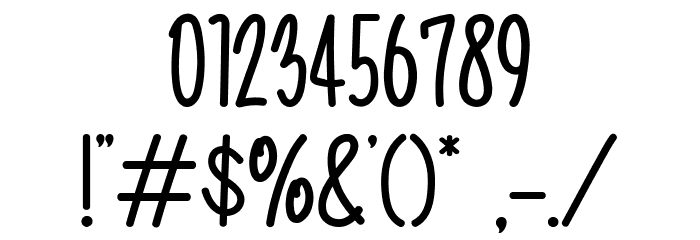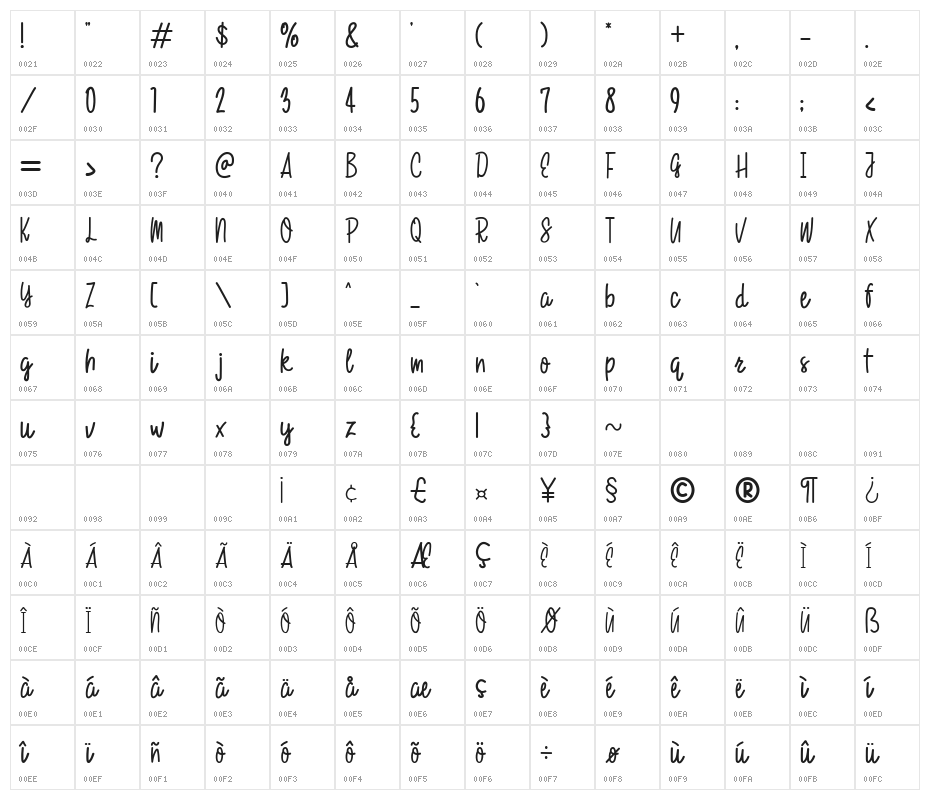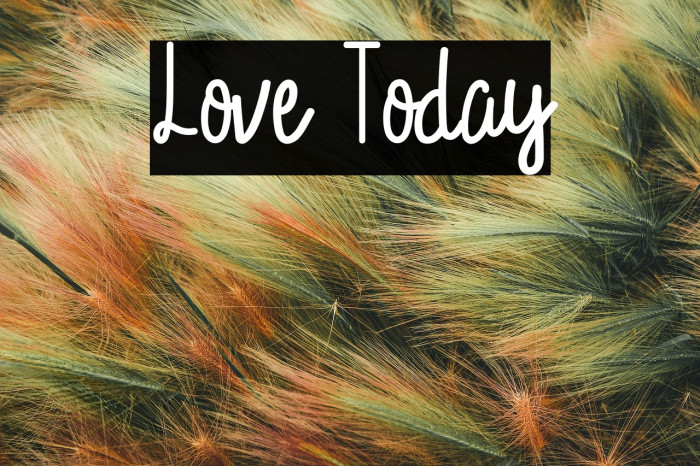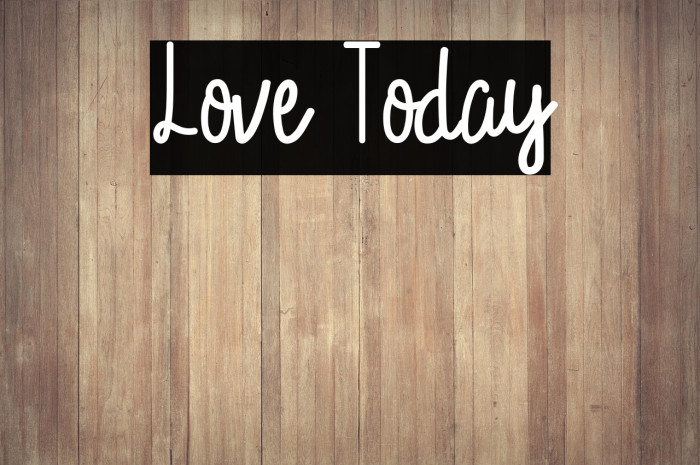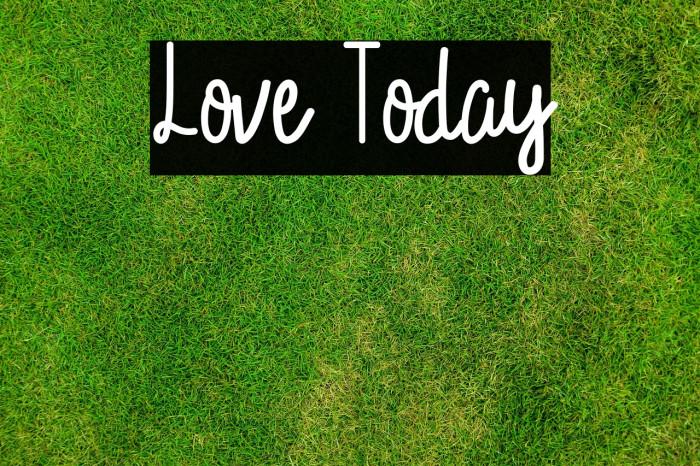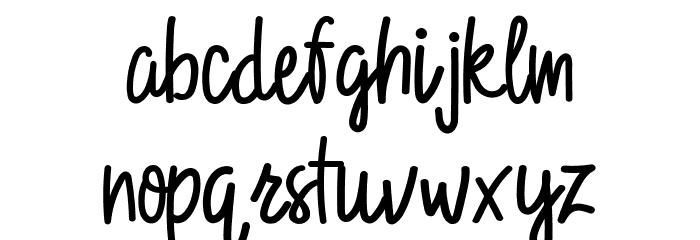
Love Today Font
Love Today Description
This font features a playful and casual handwritten style, characterized by its smooth, flowing lines and slightly irregular shapes. The uppercase letters are bold and prominent, while the lowercase letters maintain a consistent, friendly appearance. The numerals are clear and easy to read, complementing the overall informal aesthetic. Special characters are well-integrated, adding to the font's versatility. The strokes are uniform in thickness, providing a balanced look that is both approachable and stylish.
| Proposed Projects | Ideal for greeting cards, invitations, personal branding, and social media graphics. |